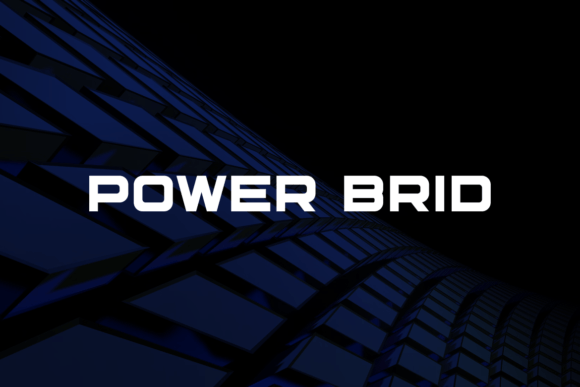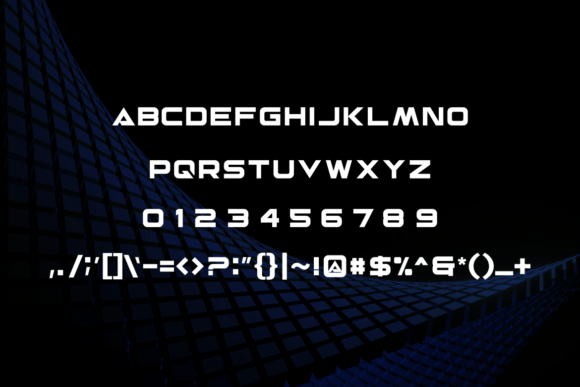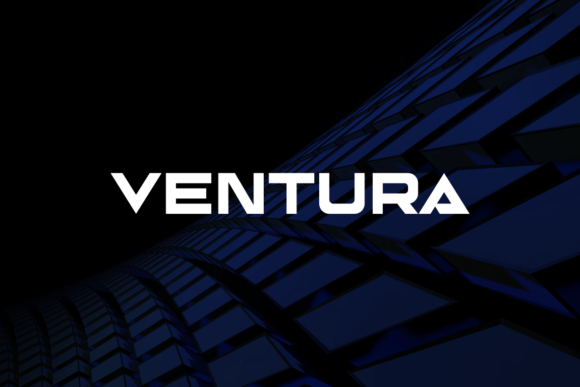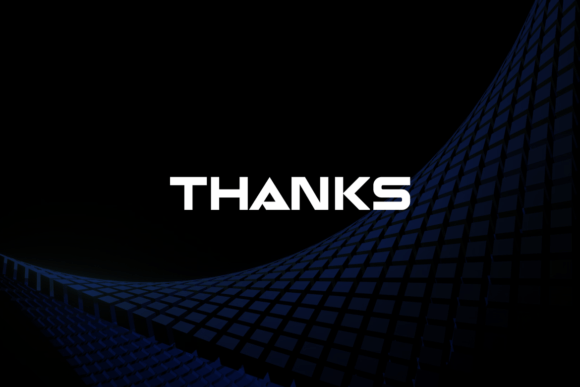
Avaqev Font: The Ultimate Choice for Modern Tech Designs
In the world of typography, fonts play a crucial role in conveying the tone and personality of a design. For designers and crafters looking to create a strong, modern, and tech-savvy look, Avaqev Font is an excellent choice. This clean, bold, and futuristic font is perfect for technology-related designs, offering a sleek and powerful feel that is sure to make your text stand out.
The Characteristics of Avaqev Font
Avaqev Font boasts a range of characteristics that make it an ideal choice for modern tech designs. Its clean lines and bold strokes give it a sharp, cutting-edge appearance that is perfect for headlines, titles, and other display text. The font’s futuristic look is achieved through its geometric shapes and minimalist approach, making it a great fit for designs that require a sense of innovation and forward-thinking.
Key Features of Avaqev Font
- Clean and Bold Lines: Avaqev Font features clean, bold lines that give it a strong and confident appearance.
- Geometric Shapes: The font’s geometric shapes and minimalist approach give it a futuristic look that is perfect for modern tech designs.
- Sharp and Cutting-Edge: The font’s sharp lines and bold strokes make it perfect for headlines, titles, and other display text.
- Highly Legible: Despite its bold appearance, Avaqev Font is highly legible, making it suitable for use in a range of design applications.
Uses of Avaqev Font
Avaqev Font is a versatile font that can be used in a range of design applications, including:
- Technology-related Designs: The font’s futuristic look makes it perfect for technology-related designs, such as software and app designs, tech blogs, and more.
- Headlines and Titles: Avaqev Font’s bold and clean lines make it ideal for use in headlines and titles, where a strong and confident appearance is required.
- Branding and Logo Design: The font’s unique and futuristic look makes it a great choice for branding and logo design, particularly for tech startups and companies.
- Advertising and Marketing Materials: Avaqev Font’s bold and attention-grabbing appearance makes it perfect for use in advertising and marketing materials, such as brochures, flyers, and posters.
Tips for Using Avaqev Font
To get the most out of Avaqev Font, here are a few tips to keep in mind:
- Use it for Headlines and Titles: Avaqev Font is perfect for use in headlines and titles, where a strong and confident appearance is required.
- Pair it with a Sans-Serif Font: For body text, pair Avaqev Font with a sans-serif font to create a clean and modern look.
- Experiment with Different Sizes and Colors: Don’t be afraid to experiment with different sizes and colors to create a unique and eye-catching design.
In conclusion, Avaqev Font is a strong, modern, and tech-savvy font that is perfect for designers and crafters looking to create a sleek and powerful look. Its clean lines, bold strokes, and futuristic appearance make it ideal for technology-related designs, headlines, titles, and more. With its versatility and highly legible design, Avaqev Font is a great choice for a range of design applications.